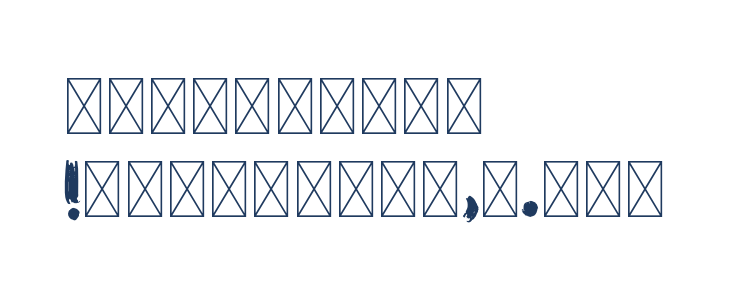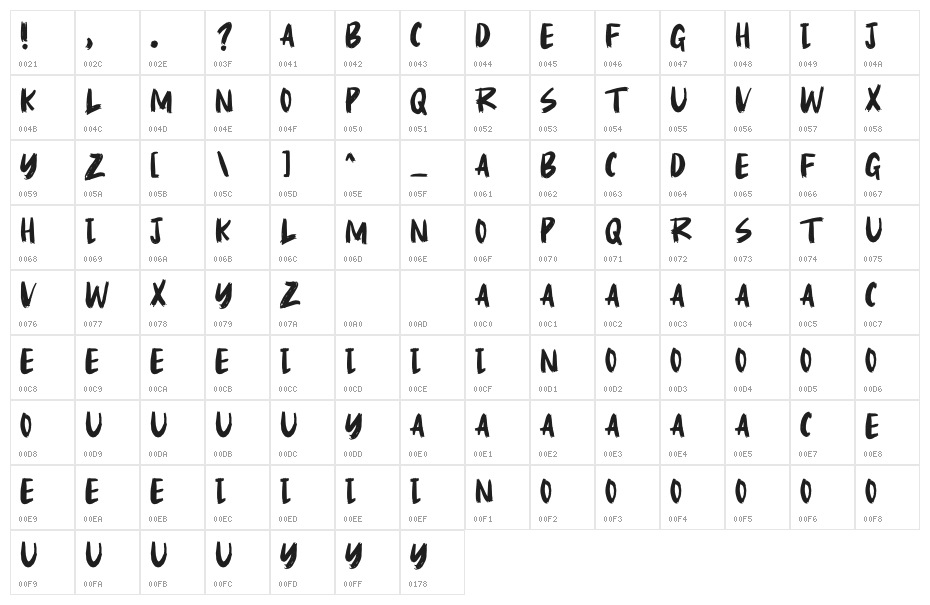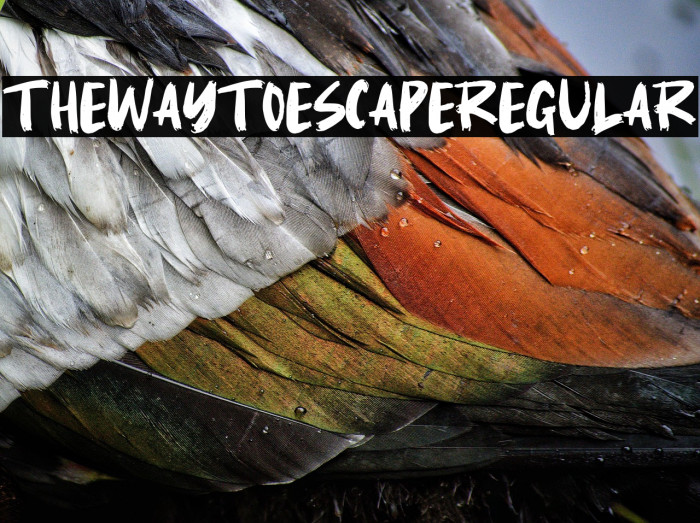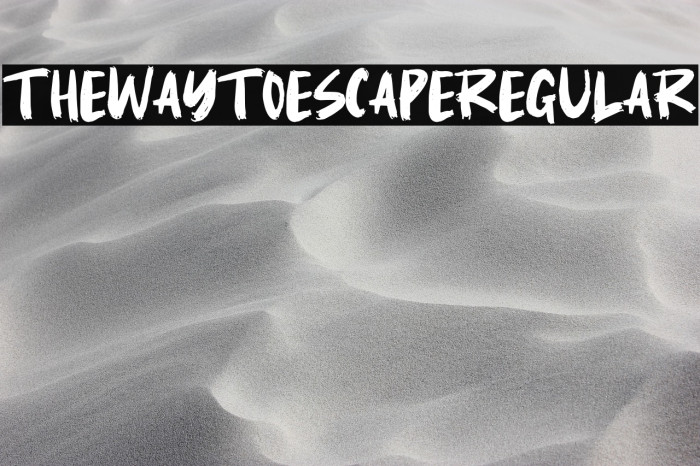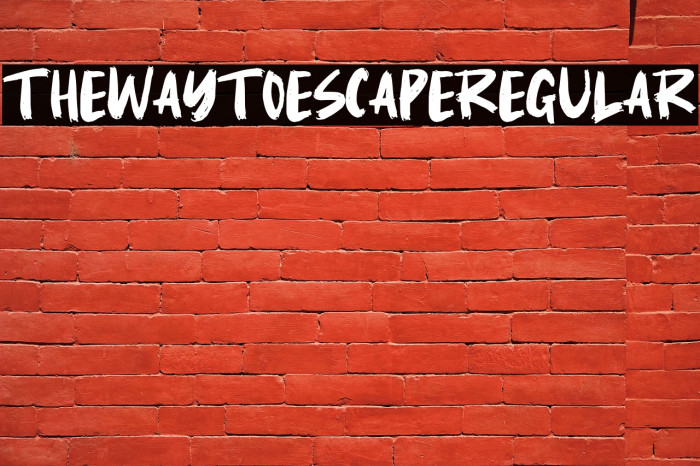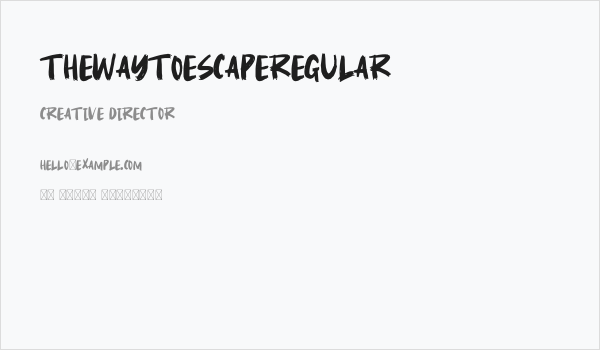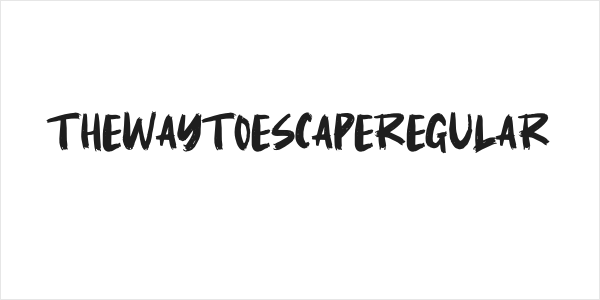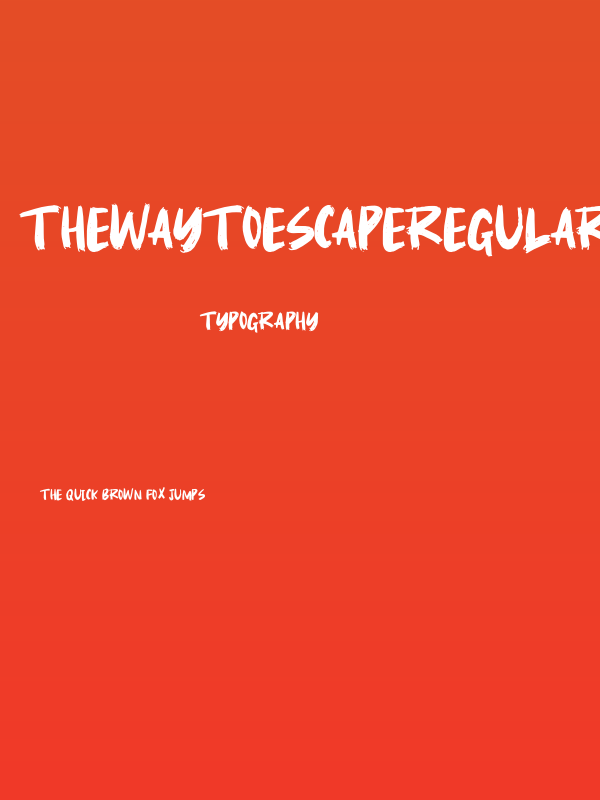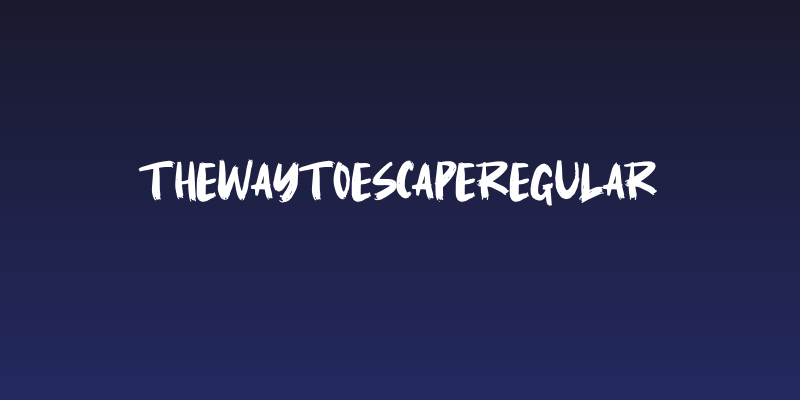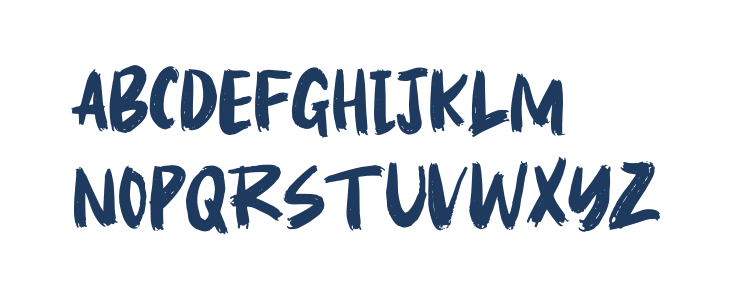
TheWayToEscapeRegular Font
TheWayToEscapeRegular Description
This font features a bold, expressive style with brush-like strokes that give it a dynamic and energetic appearance. The uppercase letters are particularly striking, with a sense of movement and flair that suggests a hand-painted aesthetic. The lowercase letters maintain this lively character, offering a cohesive look across the alphabet. The font's irregular edges and varying stroke thicknesses contribute to its artistic and informal vibe, making it ideal for creative projects. The overall design is both modern and playful, suitable for capturing attention and conveying a sense of spontaneity.
| Overall Style | Modern, Artistic |
| Proposed Projects | Ideal for posters, branding, social media graphics, and creative advertising. |